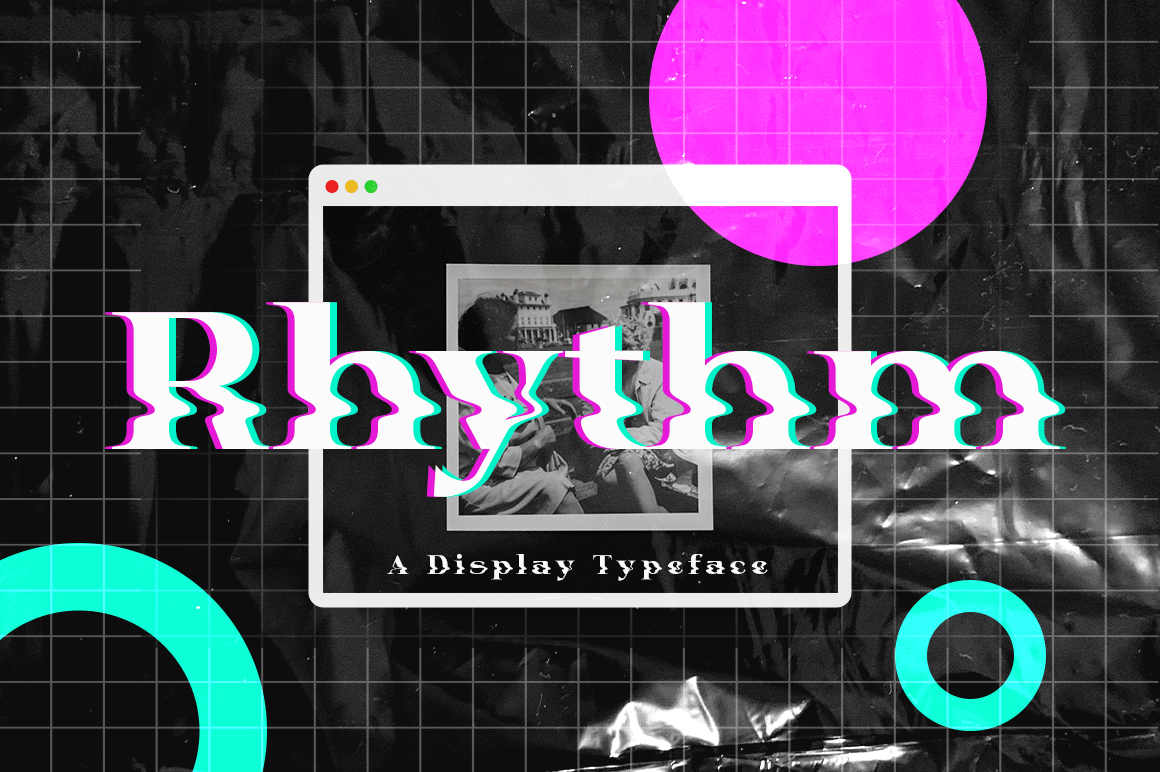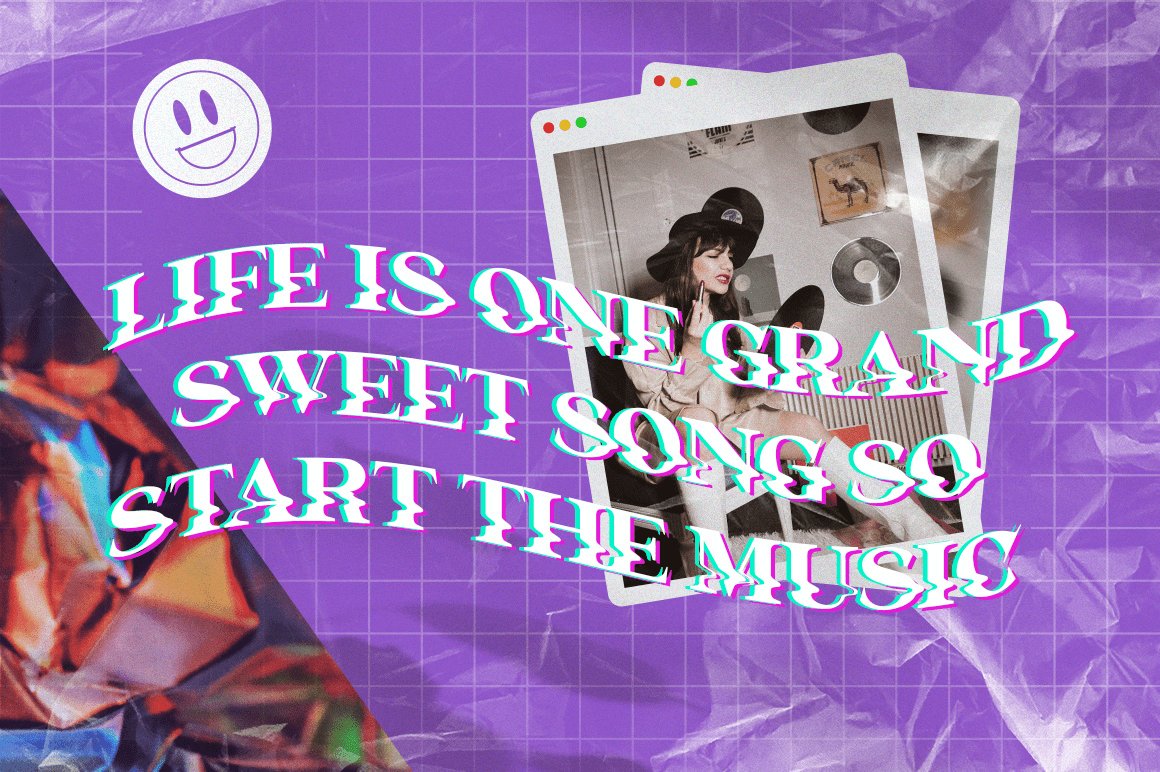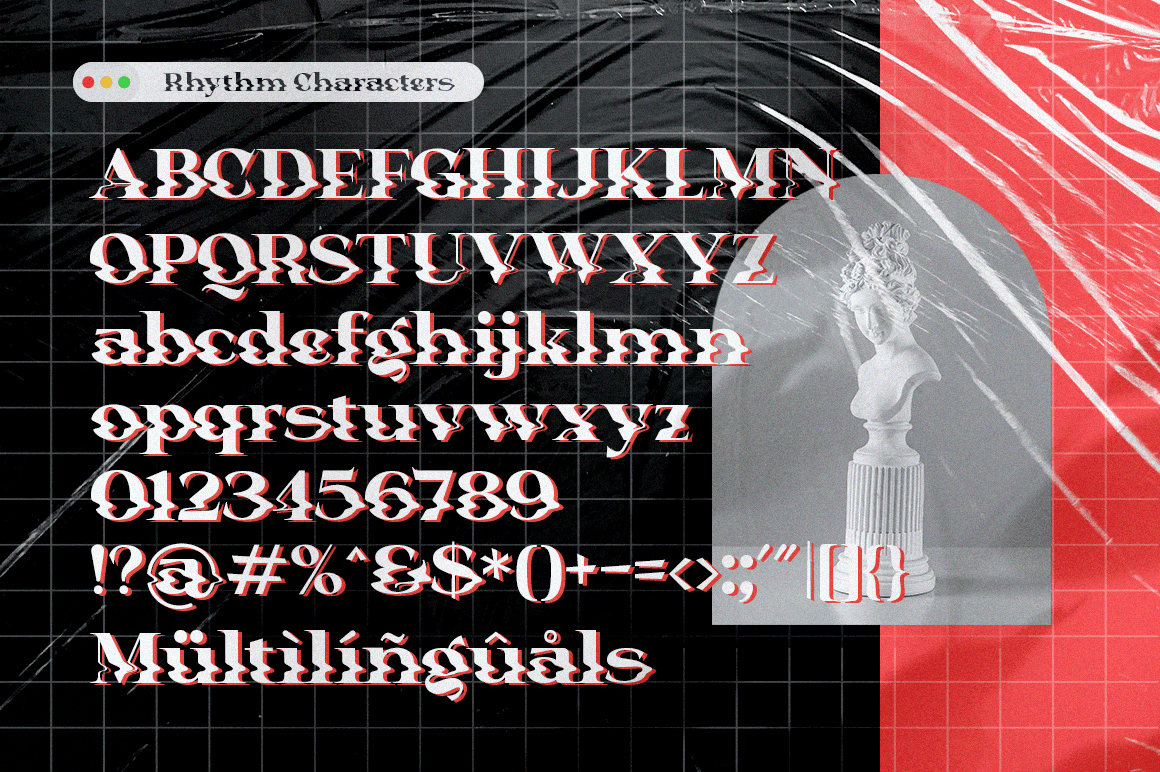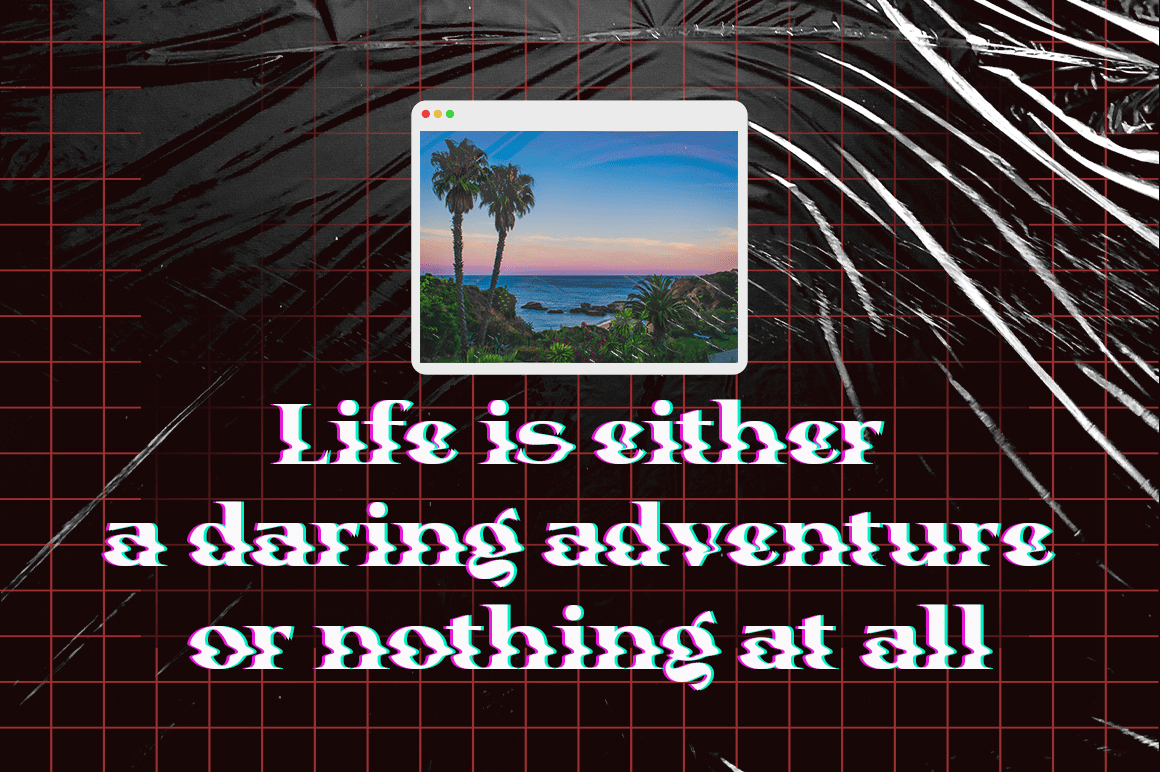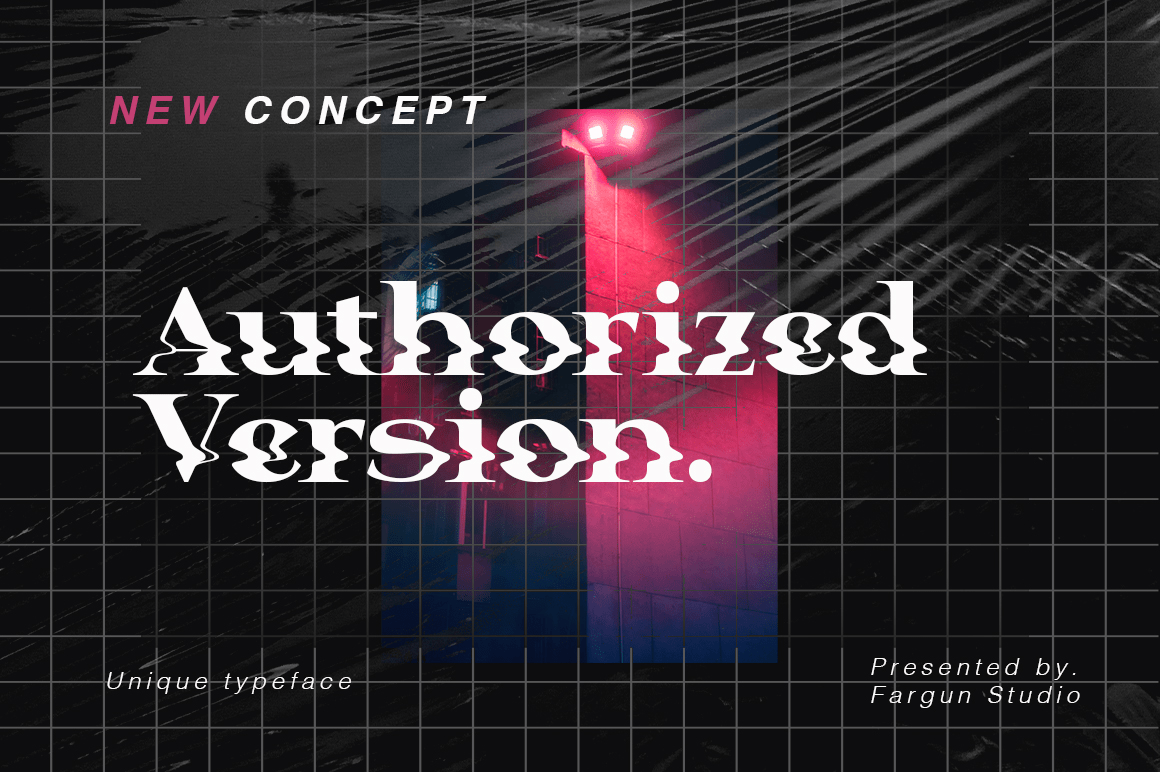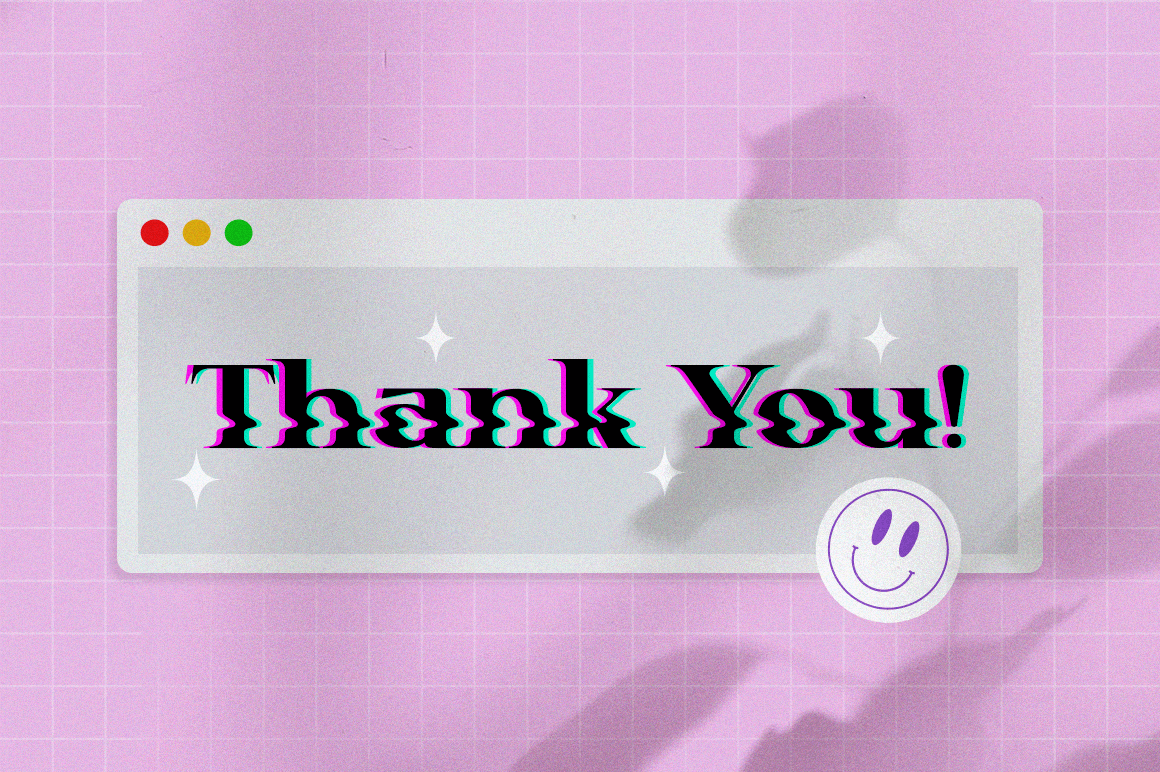
Rhythm Display
Font Family by Fargun Studio
Introducing Rhythm Serif Display Font
This beautiful font will engage your audience and make your promotions and projects stand out. This font is designed with a bada curve in the middle so it looks really cool and brings your brand to life and add a touch of modernity and style with the Rhythm Serif Display Font. Use it for titles, logos, business cards, printed quotes, all kinds of invitations, cards, packaging and branding of your website or social media.
Our font always includes Multilingual option to make your branding globally recognized.